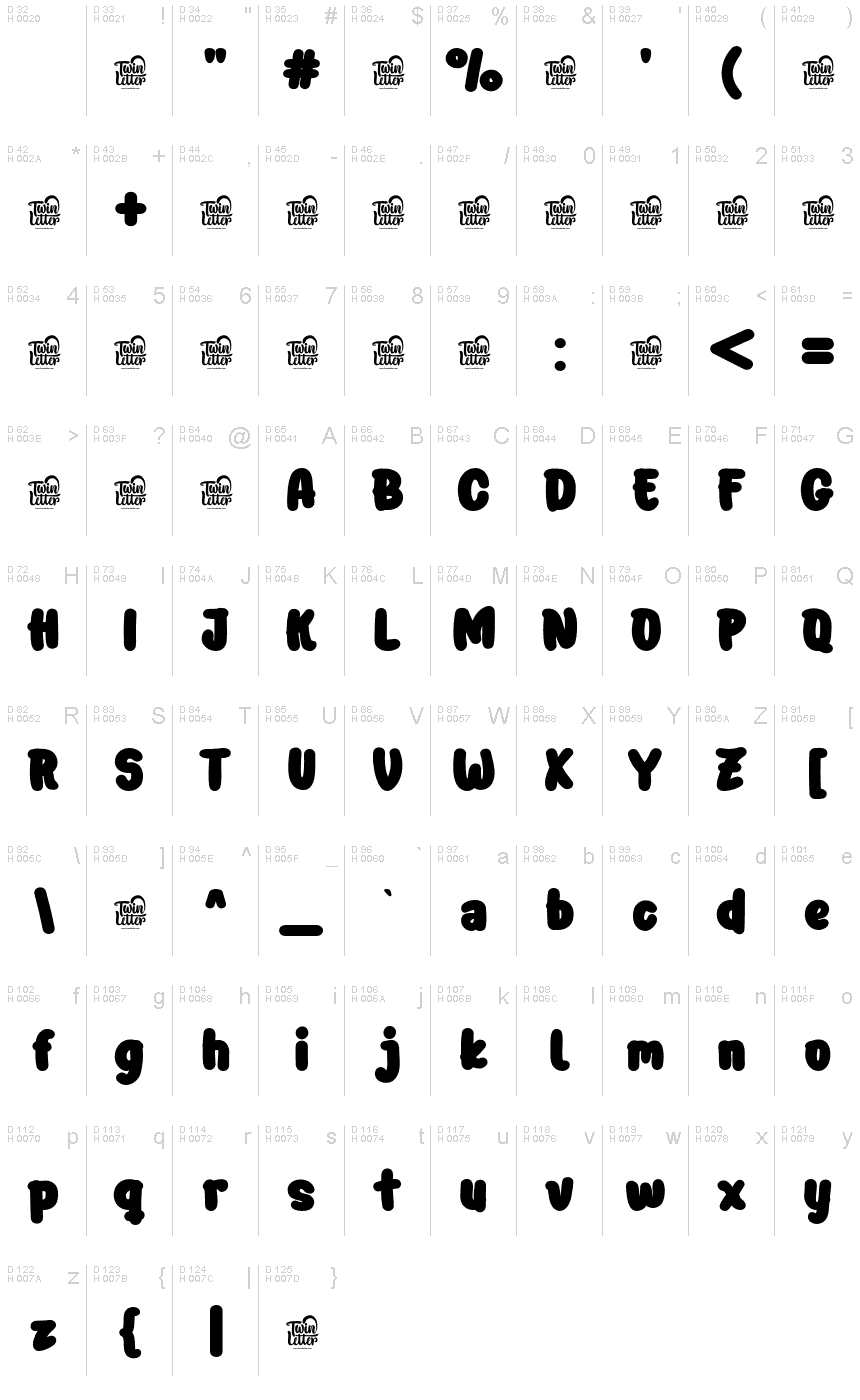
BENAHBold
BENAH Bold is the perfect choice for projects that require a bold, handwritten font with an extra-bold weight. Designed by twinletter, this font family exudes personality and uniqueness that will surely catch anyone's attention. Its natural strokes and curves add a touch of authenticity and warmth to any design, making it ideal for branding, packaging, invitations, logos, and more. Whether you're creating a modern or vintage-inspired project, BENAH Bold can easily adapt to any style. With its versatile use cases, this semi-bold typeface is sure to elevate your design game to another level.